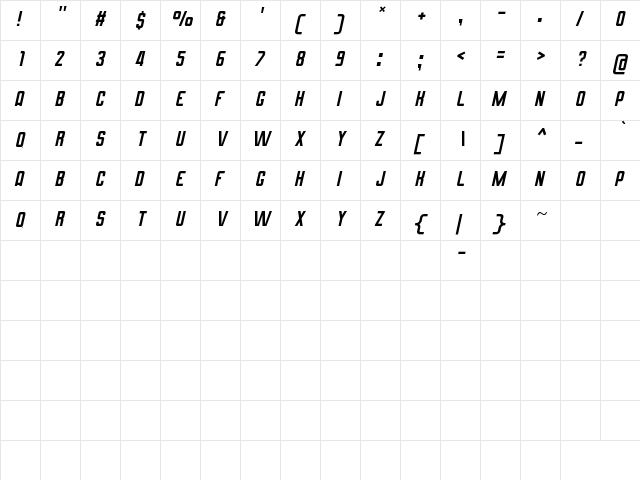
California Signature Duo Italic Regular
| Foundry | Staircase Studio |
| Designer | Staircase Studio |
Design Context for California Signature Duo Italic Typeface
California Signature Duo Italic is a composed and adaptable typeface that performs quietly and consistently across a wide range of design contexts. The slanted form adds forward momentum and visual energy.
Pro Tip: Try California Signature Duo Italic for annotation and caption copy alongside an upright companion — the contrast in angle creates a dynamic but ordered typographic system.